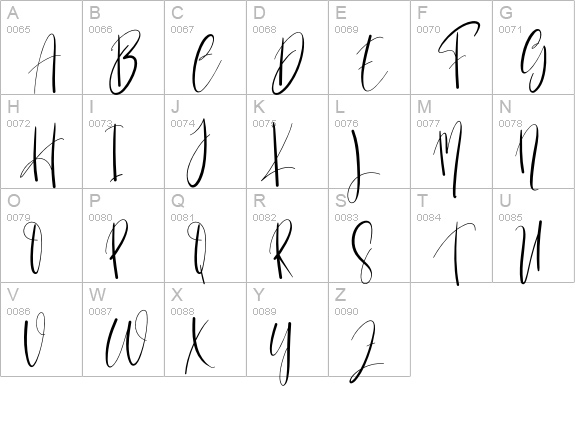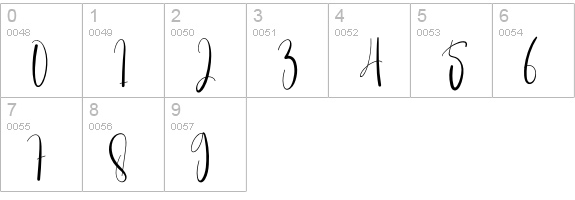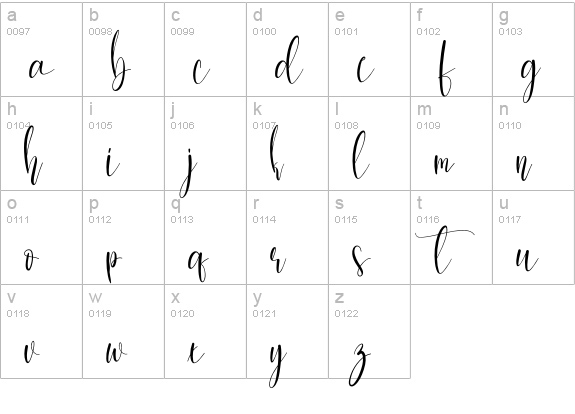
Christmas uniform Font Details
Christmas uniform is a free for personal use font in the Script > Handwritten category, designed by scratchones. It has been downloaded 2 times and is available for Windows, Mac and Linux.
Introducing the exquisite Christmas Uniform font, a whimsical and festive typeface that will bring joy and holiday spirit to all your design projects. This charming font features unique letterforms with a touch of holiday magic, perfect for creating eye-catching Christmas cards, invitations, posters, and more.
With its versatility and charm, Christmas Uniform font is sure to become a favorite in your font collection. Spread the holiday cheer and add a touch of Christmas magic to your designs with this beautiful font today. Download it now at FontsMarket.com and let your creativity shine this festive season!